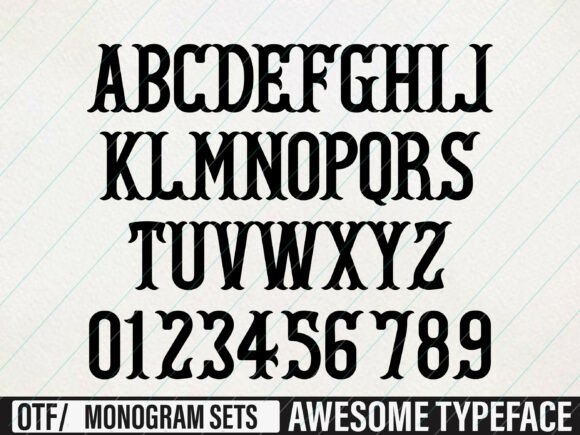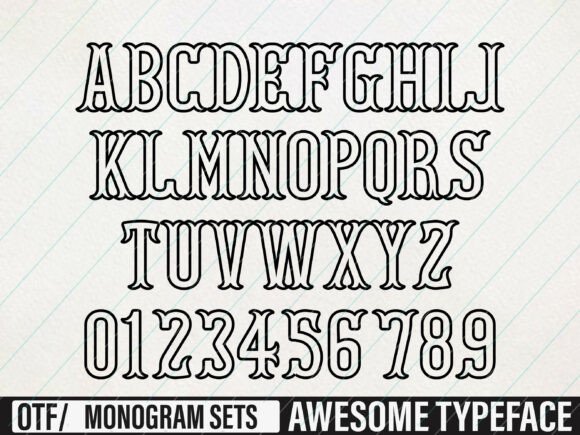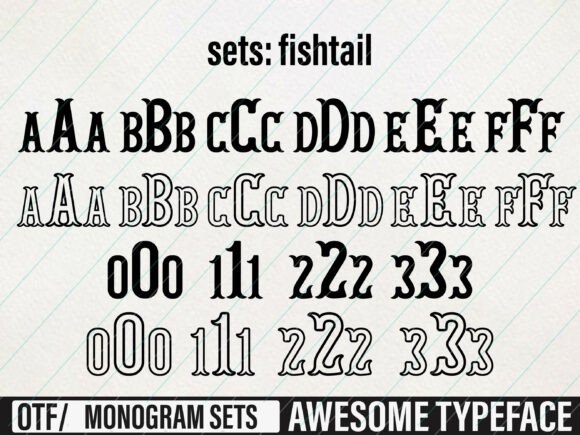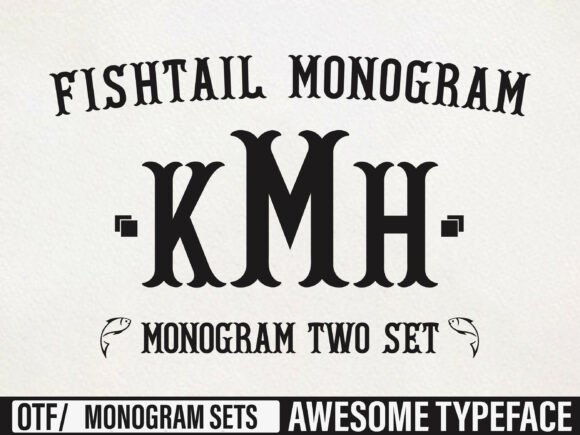
The Fishtail Monogram Font: Elevate Your Designs with Elegance and Uniqueness
I still remember the time I was working on a wedding invitation project, and my client asked for a custom monogram that would make their special day even more unforgettable. I scoured the internet for the perfect font, but nothing seemed quite right – until I stumbled upon the Fishtail Monogram Font. Its unique design and elegant flair instantly caught my eye, and I knew I had found the perfect fit. In this article, I’ll share my experience with this stylish font, its features, and how to make the most of it in your creative projects.
An Honest Review of Fishtail Monogram Font
• ✨ Unique and eye-catching design that adds a touch of elegance to any project
• ✅ Highly versatile and suitable for various creative projects, from wedding invitations to branding and packaging
• 💫 Beautifully crafted monogram characters that make your designs stand out
• 🎨 Extensive range of OpenType features, glyphs, and stylistic alternates to experiment with
While the Fishtail Monogram Font is an excellent choice for many projects, there are a few things to keep in mind:
• 🤔 Some characters may require manual kerning to achieve optimal spacing
• ⚠️ Limited language support, so it’s best suited for English or similar languages
The Fishtail Monogram Font was inspired by the elegant, hand-crafted monograms of the Victorian era. Its designer aimed to create a font that would evoke a sense of sophistication and refinement, while still being unique and eye-catching. The result is a beautiful, versatile font that adds a touch of elegance to any design.
What type of projects is Fishtail Monogram Font best suited for? Fishtail Monogram Font is perfect for wedding invitations, branding and packaging, stationery, and any project that requires a touch of elegance and sophistication.
Is Fishtail Monogram Font suitable for body text? While Fishtail Monogram Font is beautiful, it’s best used for titles, headings, and short text passages. Its unique design and elegant flair make it less suitable for long-form body text.